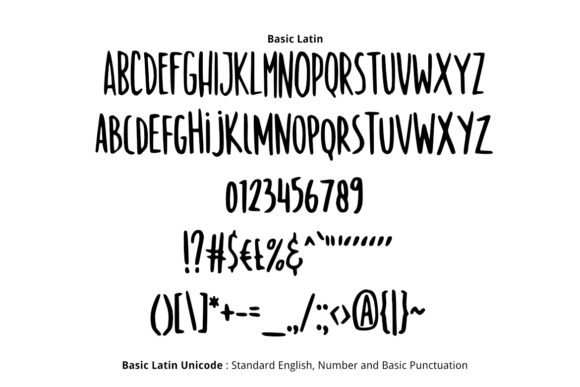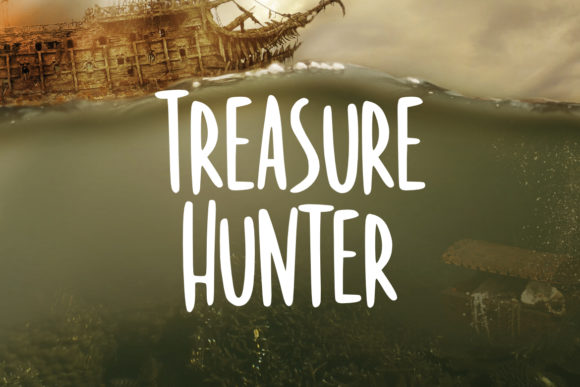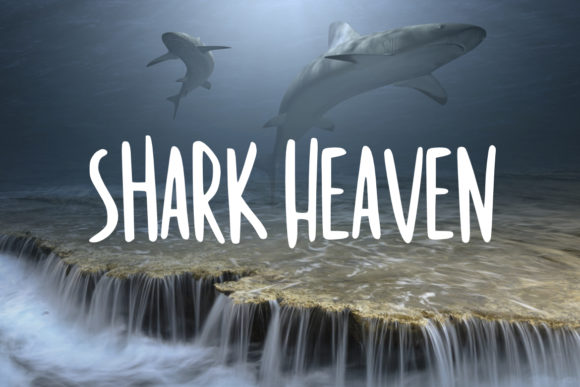
Introduction to Secret Water Font
Have you ever been working on a creative project, and you can’t quite seem to find the right font to bring your ideas to life? I know I have. It’s like that one puzzle piece that you just can’t seem to fit into place. But what if I told you that there’s a font that could be the missing piece to your design puzzle?
Enter the Secret Water Font, a quirky and authentic sans serif font that’s sure to add a playful touch to any project. With its bouncy baseline, this font is perfect for designers looking to add a bit of whimsy and personality to their work. And the best part? It’s available for free download, making it a valuable resource for designers on a budget.
Whether you’re working on a high-quality design project or just looking for a fun and creative way to express yourself, the Secret Water Font is a great choice. And with its transparent background, you can easily use it on any background or design element, making it a versatile design resource that’s sure to come in handy.
Key Features of Secret Water Font
- High-quality, professional font design ideal for creative projects requiring a unique touch.
- Features a transparent background, making it easy to layer over any image or design without distracting from the main content.
- Designed to be highly versatile, suitable for use in a wide range of creative projects, from branding and marketing materials to digital art and graphic design.
- Unique, hand-crafted design elements and subtle texture add a touch of sophistication and elegance to any creative project.
- Perfect as a design resource for anyone looking to add a touch of exclusivity and high-end style to their work.
Honest Review: Secret Water Font
I recently stumbled upon the Secret Water Font while searching for a unique design resource to elevate my creative project. As a designer, I’m always on the lookout for high-quality fonts that can bring a touch of elegance and sophistication to my work.
The Secret Water Font is available for free download, which is a major plus in my book. I appreciate the transparency of the font’s creators, who have provided a clear and legible font with a transparent background. This makes it incredibly versatile and easy to use in a variety of design contexts.
- ✨ High-quality design with a unique aesthetic
- ✨ Easy to read and use, even at small font sizes
- ✨ Transparent background makes it easy to customize and combine with other design elements
- ⚠️ Limited font styles and variations available (though still a great starting point for many projects)
- ⚠️ May not be suitable for projects requiring a bold or dramatic font
Overall, I’m impressed with the Secret Water Font and would recommend it to fellow designers looking for a high-quality, free design resource. While it may have some limitations, its unique aesthetic and versatility make it a valuable addition to any design toolkit.
To get the most out of the Secret Water Font, experiment with different font sizes, colors, and combinations to create unique and eye-catching designs. You can also pair it with other design resources to enhance the overall look of your project.
The Secret Water Font is perfect for various creative projects, including branding, marketing materials, and social media graphics. Its high-quality design and transparent background make it an ideal choice for designers and non-designers alike.